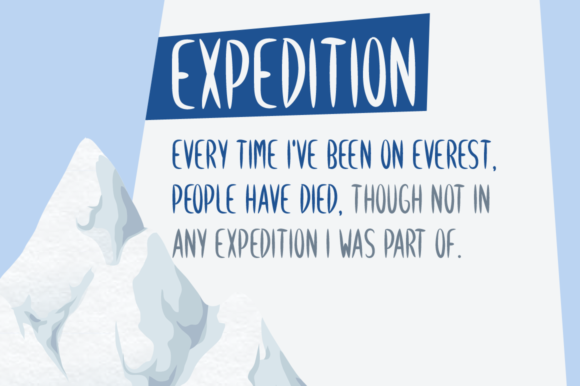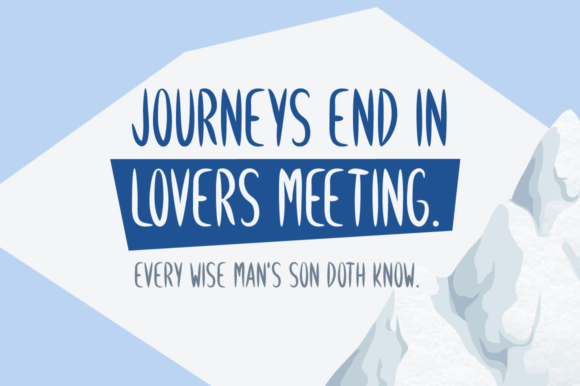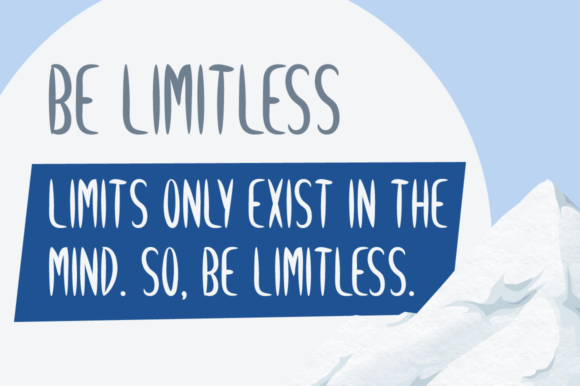
Introduction to Current Expedition Font
As a designer, have you ever found yourself stuck on a creative project, desperate for the perfect font to bring your vision to life? You’ve spent hours scouring the web for that elusive perfect match, only to settle for something that’s just okay. But what if you could elevate your design game with a font that’s not just great, but truly exceptional?
| 📌 Product Name | Current Expedition Font |
| 👤 Author | MSB |
Enter the Current Expedition Font, a stunning sans serif display font that’s sure to take your projects to the next level. With its refreshing and high-quality design, this font is perfect for use in both digital and print projects, making it a valuable addition to any designer’s toolkit. Whether you’re working on a creative project with a transparent background or need a font that can stand on its own, the Current Expedition Font is a free download that’s sure to impress.
Key Features of Current Expedition Font
- High-quality font design suitable for creative projects, with a transparent background for seamless integration.
- Features a unique, modern design that is perfect for adding a touch of adventure and exploration to any creative project.
- Supports a wide range of languages, making it a versatile design resource for projects of all kinds.
- Includes a comprehensive character set, including uppercase and lowercase letters, numbers, and punctuation marks.
Honest Review: Current Expedition Font
I recently stumbled upon the Current Expedition Font and was excited to try it out for a creative project. After a few days of using it, I must say I’m impressed with its high quality and versatility.
- ✨ Unique design aesthetic that adds a sense of adventure to any project
- ✨ Highly customizable with a range of weights and styles to choose from
- ✨ Works well with a transparent background, allowing for a seamless design experience
However, I did encounter a few limitations while using the font.
- ⚠️ May not be suitable for small text sizes, as the font can appear blurry
Overall, I’m quite impressed with the Current Expedition Font. Its unique design and high quality make it a great addition to any designer’s toolkit. While it’s not perfect, I’d definitely recommend it to anyone looking for a free design resource with a lot of potential.
Tips for Getting the Most Out of Current Expedition Font
Experiment with different font sizes and styles to achieve the desired effect. Combine the Current Expedition Font with other design resources for a unique and eye-catching look.
The Current Expedition Font is ideal for branding, logos, presentations, and social media graphics. Its high quality and transparent background make it a versatile choice for various creative projects.
Alternatives to Current Expedition Font
Montserrat Font is a high-quality sans-serif font that is perfect for creative projects that require a modern and sleek look. It has a transparent background, making it ideal for use on a variety of backgrounds. Montserrat Font is free to download and can be used for both personal and commercial projects. It is a great alternative to Current Expedition Font for designers who want a clean and minimalist look.
Montserrat Font compares to Current Expedition Font in that it has a similar modern feel, but with a more geometric and urban aesthetic. While Current Expedition Font has a more adventurous feel, Montserrat Font is better suited for projects that require a clean and professional look.